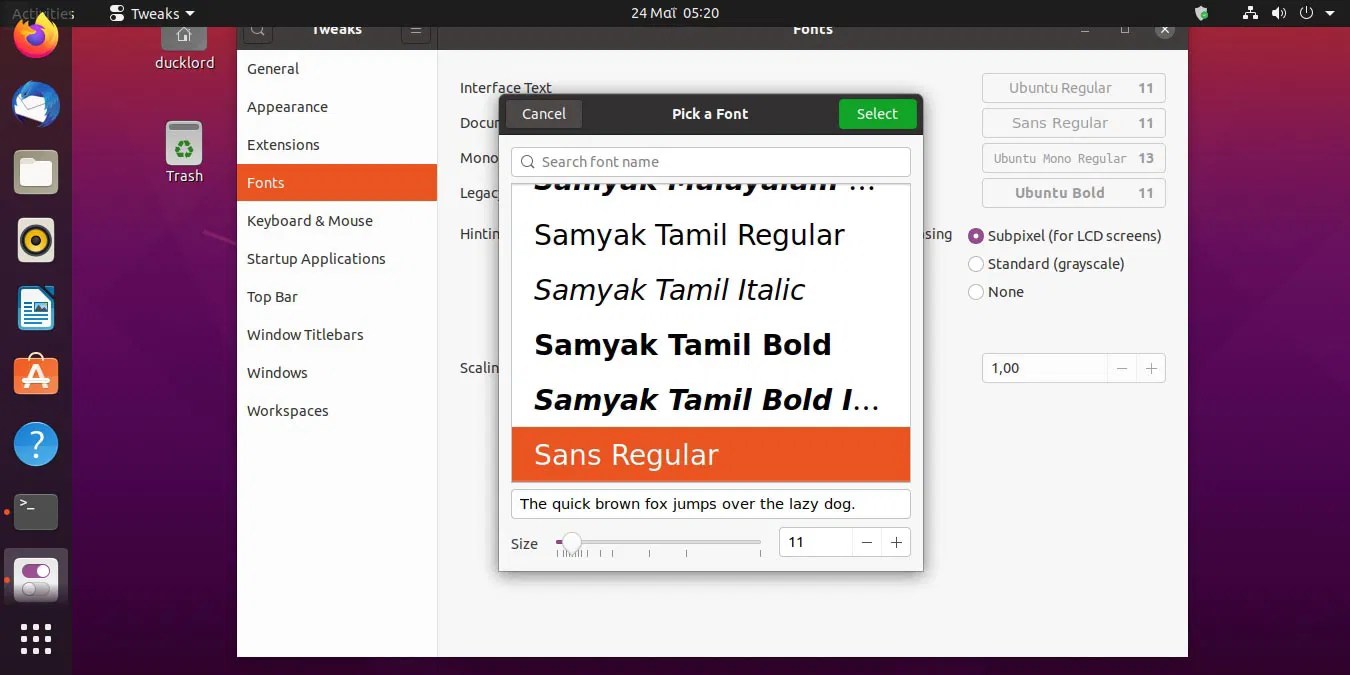
Ubuntu Default Fonts. Given ubuntu still carries open source fonts such as dejavu sans mono or liberation mono, which are better for lcd than courier new, consider: What is the default font in ubuntu?
The ubuntu font family has been included in the google fonts directory, making it easily available for web typography, and as of april 26, 2011 it is included for use in google docs. Pattern has 26 elts (size 32) family: It was part of the rebranding of the linux distribution of the same name ubuntu.
Ubuntu 16.04 (xenial xerus) no longer carries droid sans mono, this causes font to be rendered with courier new if linux desktop user installed ms core fonts (more than likely). It was part of the rebranding of the linux distribution of the same name ubuntu. On the right there is a button, install font.
The Ubuntu Font Family Are A Set Of Matching New Libre/Open Fonts.
However, Ubuntu Lags Behind If We Compare It With Windows On The Basis Of Fonts.
Ubuntu mono from the ubuntu font family (font.ubuntu.com) is the default gui monospace terminal font on ubuntu 11.10 (oneiric ocelot). Open the folder where you have downloaded the font file. Among the font designers is vincent connery, the creator of the comic sans and trebuchet ms fonts.
Using The Binding Attribute Will Give You Better Results, For Example, This Will Cause Ubuntu To Be Used In Place Of Georgia: